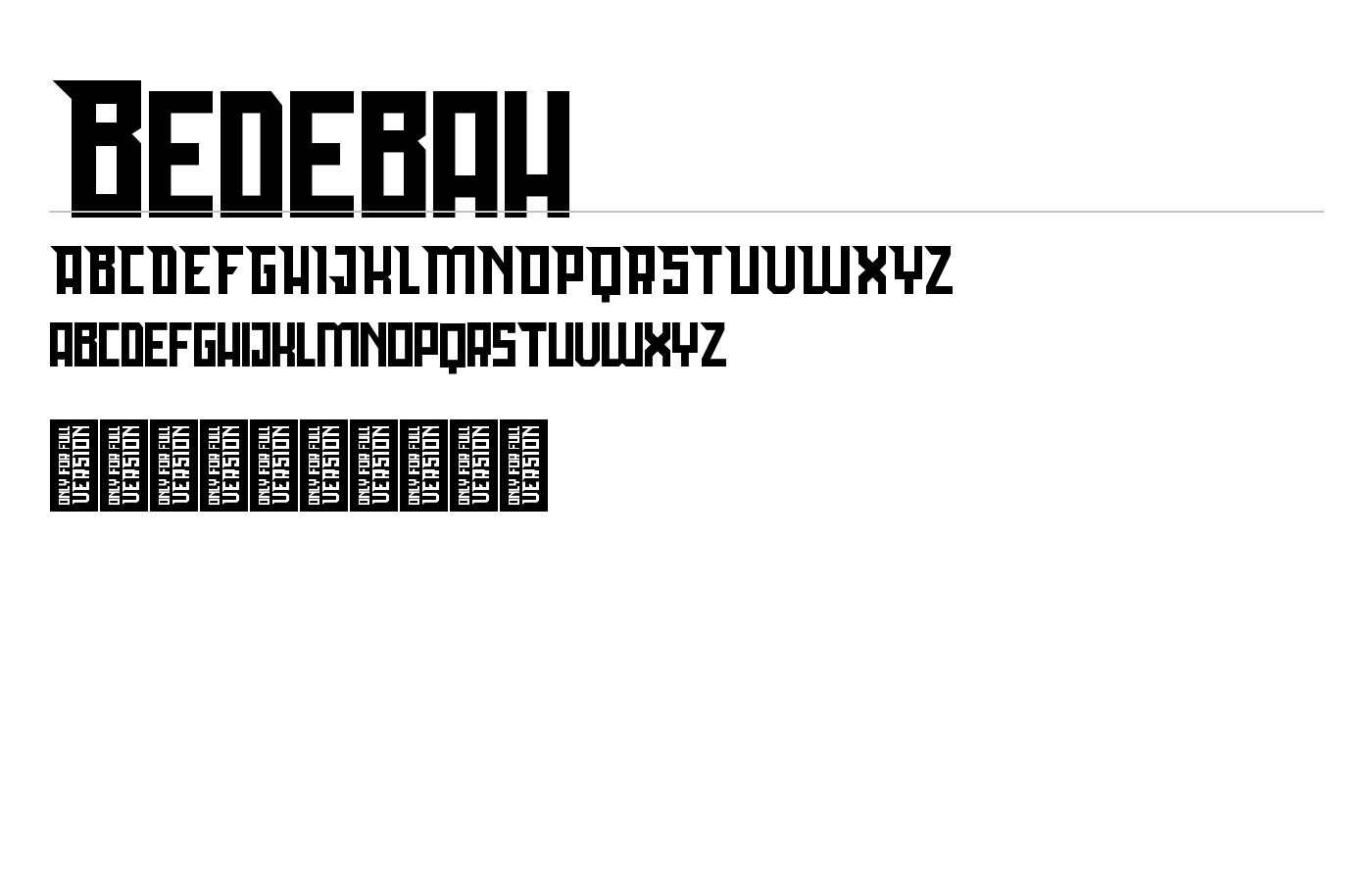
Bedebah Font is a bold, condensed sans serif with a strong, geometric structure and sharp edges, giving it a modern and industrial feel. Its high x-height and uniform stroke weight create a striking, impactful look that works well for headlines, logos, and branding that aim to convey strength and uniqueness. This font shines in designs requiring a futuristic or edgy vibe, making it ideal for posters, album covers, and urban or tech-oriented projects.
Bedebah Font
About Bedebah Font
| Font family | Bedebah Font |
| Designer | HOLIS MAJID |